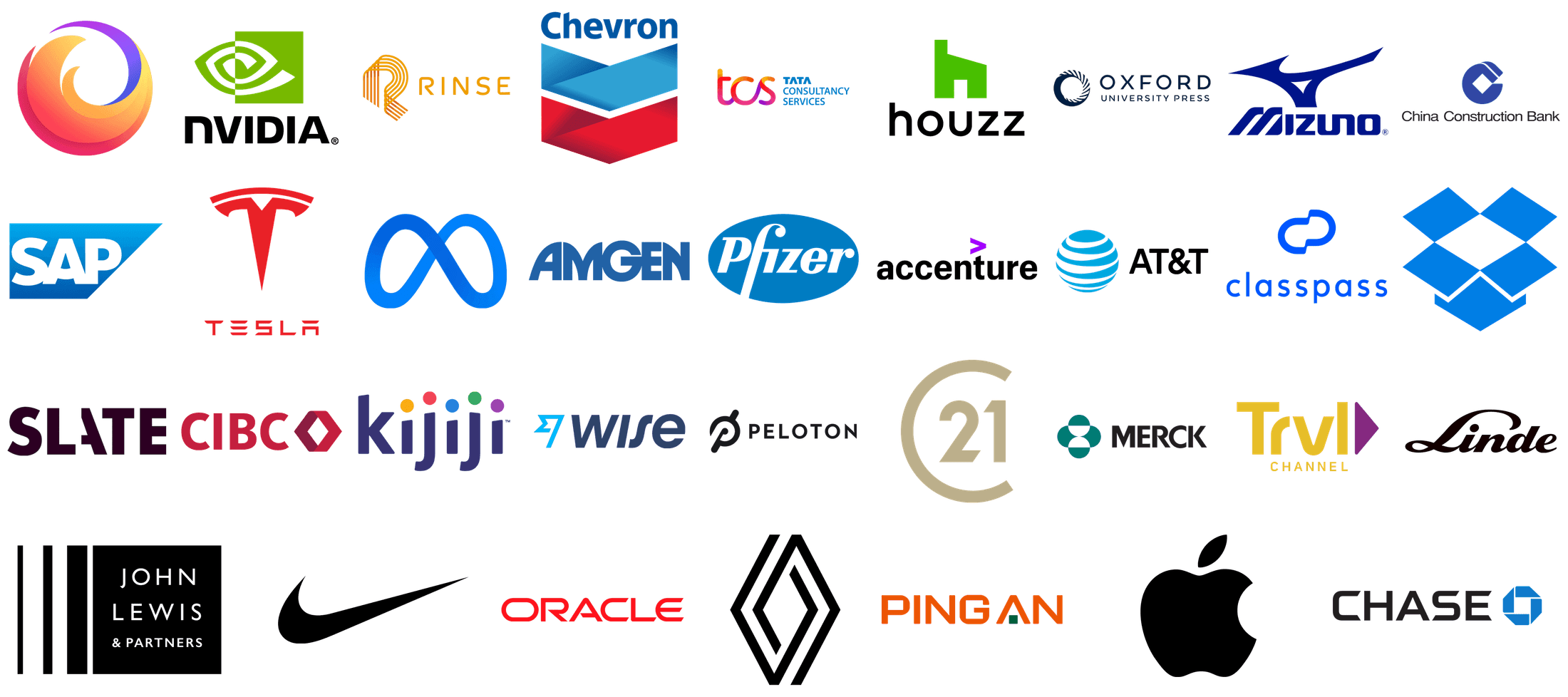
The Power of Color and Design in Modern Logos
A logo is usually the first thing people notice about a brand. It’s not just a picture, it shows what the company stands for, its personality, and its style. The colors, shapes, and overall design of a logo can leave a strong impression and even affect how people feel about the brand. In today’s design world, every detail matters because a logo can communicate a message without using words.
Why Color Matters in Logo Design
Colors are like a secret language. Each one gives off a certain feeling. Red means you are full of energy and excited. Blue often makes people feel safe and trust you. Green reminds us of nature and new beginnings. Yellow feels happy and bright. The colors in a logo change how people see a company. They help people remember the brand and even help them choose to buy something.
Shapes and writing styles are also very important. Shapes that are round feel nice and friendly. Shapes with sharp points look strong and serious. For the words, fonts with little lines (like Times New Roman) feel old or classic. Fonts without those lines (like Arial) look modern and neat. When you choose good colors, shapes, and fonts together, your logo looks great and tells the right story.
Tools and Tips for Creating Modern Logos
Designing a logo is easier today thanks to a variety of digital tools. Many designers rely on the best logo makers 2026 to quickly test different ideas, try out layouts, and see how colors and fonts work together. These tools make it possible to visualize a logo in different contexts, from websites to business cards, helping designers make smarter choices. Even with technology, understanding the basics of design and color theory is key to creating a logo that really connects with people.
Another essential step is learning how to build a logo style guide. A style guide lays out how a logo should be used consistently across all platforms. It covers colors, fonts, spacing, and placement, ensuring the logo always looks professional. Following a style guide helps a brand stay recognizable and cohesive, whether it appears online, in print, or on promotional materials.
Conclusion
The colors and look of a logo matter a lot. Every choice helps tell you what the brand is about. This means the colors and the letter style. Designers now have good tools and pictures. But the main rules for good design are still the same. If a brand picks colors and shapes well, and uses them the same way always, the logo will be easy to remember. It will look good and mean something. A logo is more than a simple picture. It tells the company's story using visuals.